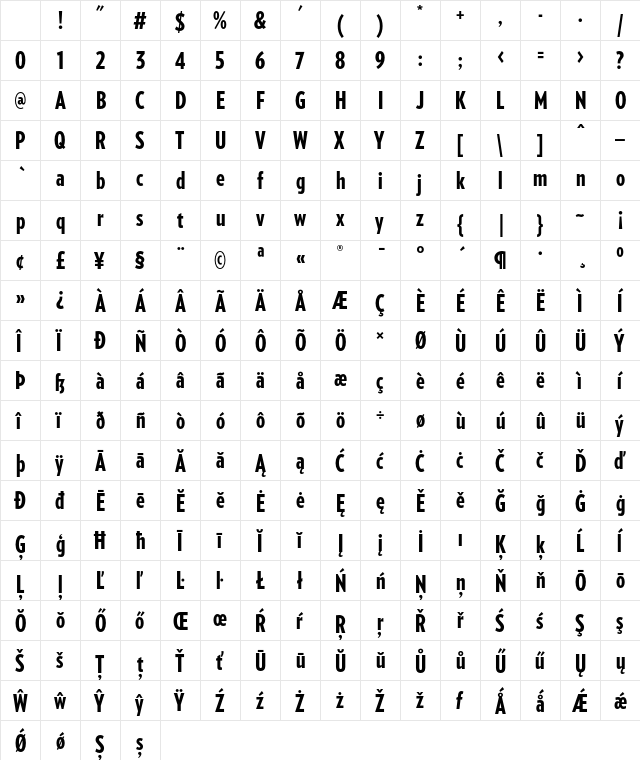
Complete Verlag Compressed Black glyph index. Displaying only characters natively supported by Verlag Compressed Black font.
Verlag Compressed is a composed and adaptable typeface that performs quietly and consistently across a wide range of design contexts.
Who designed the Verlag Compressed Black font?
This font was published by Hoefler & Frere-Jones. Check the technical specs section for copyright and designer details.